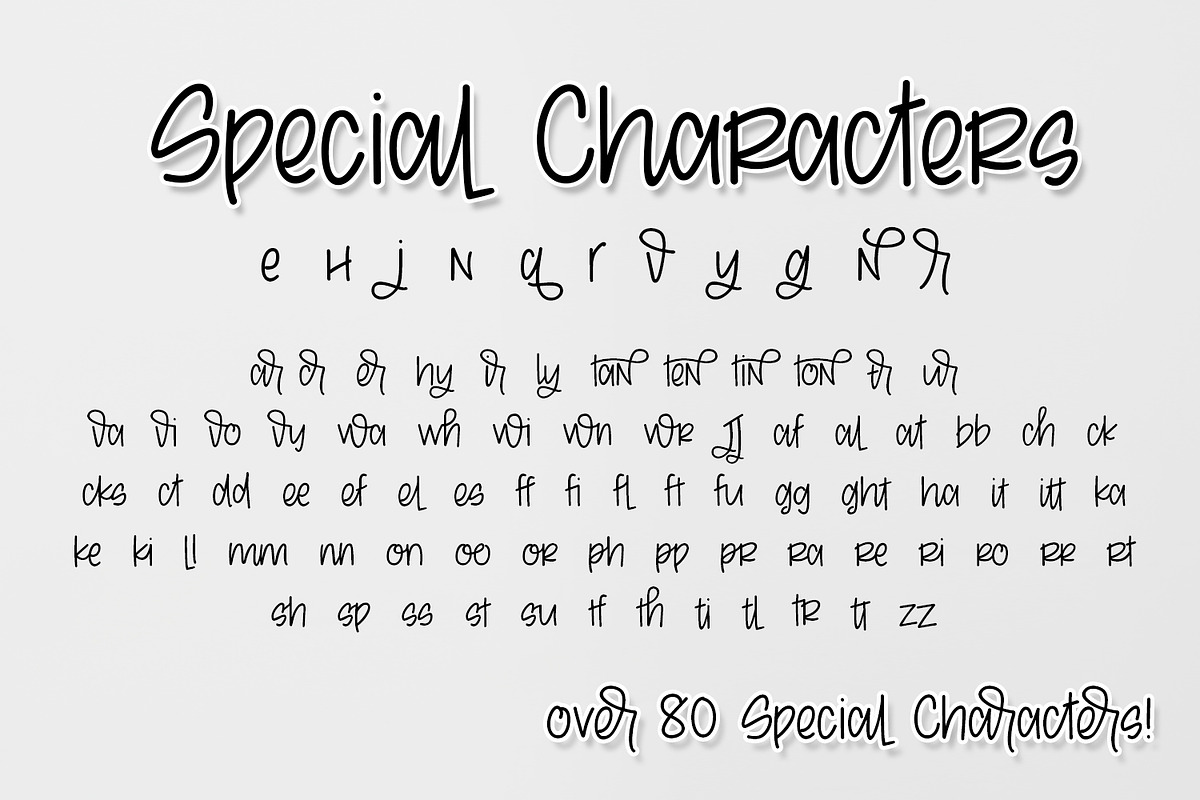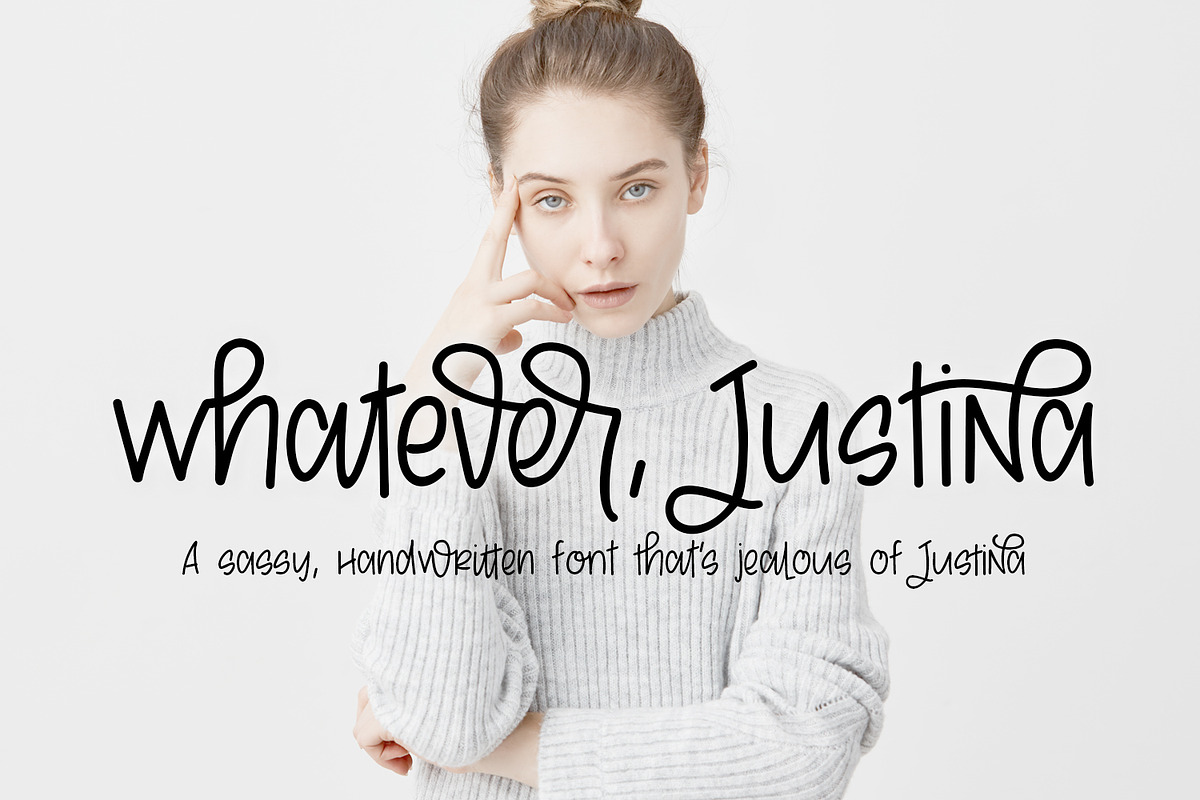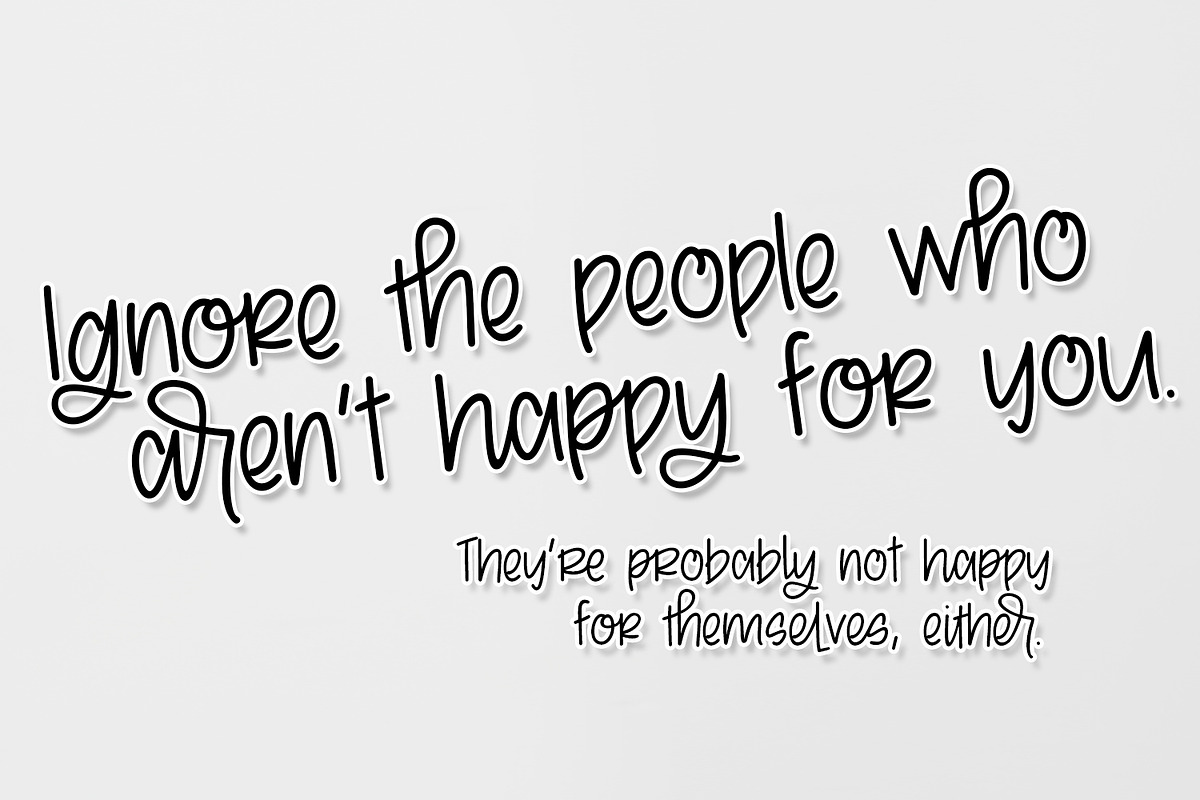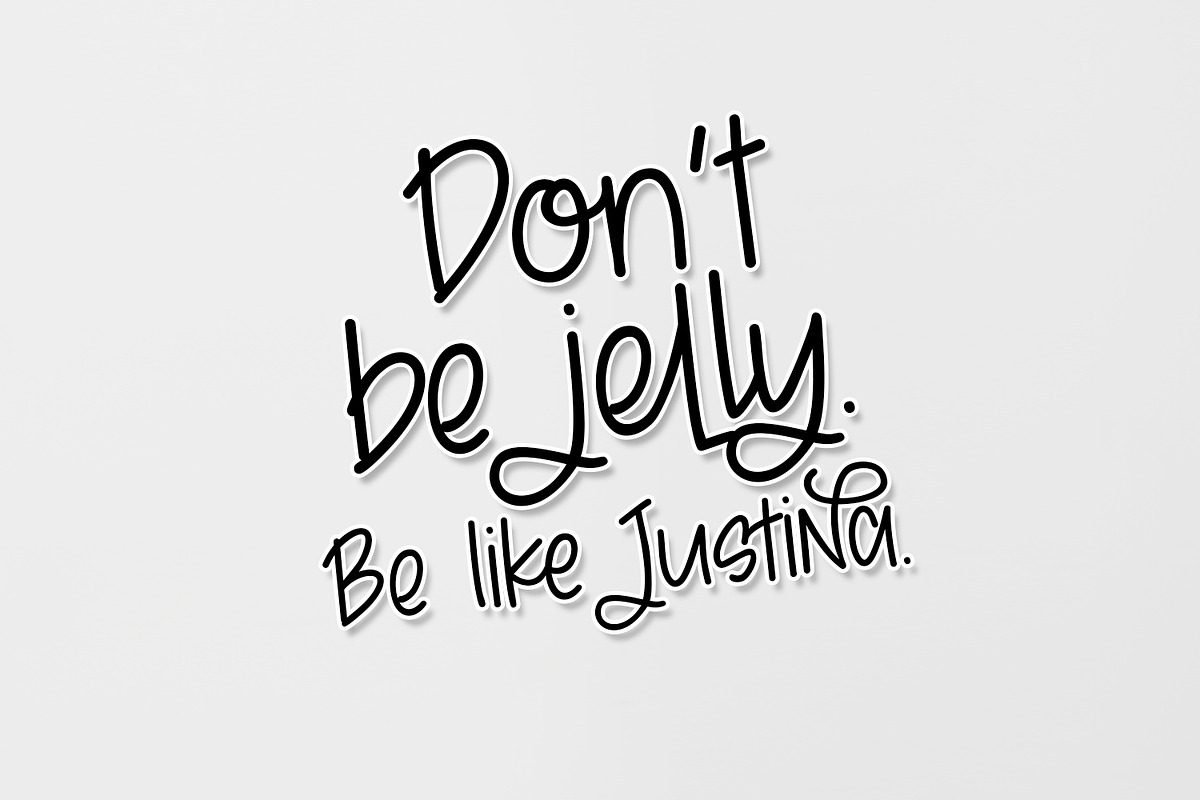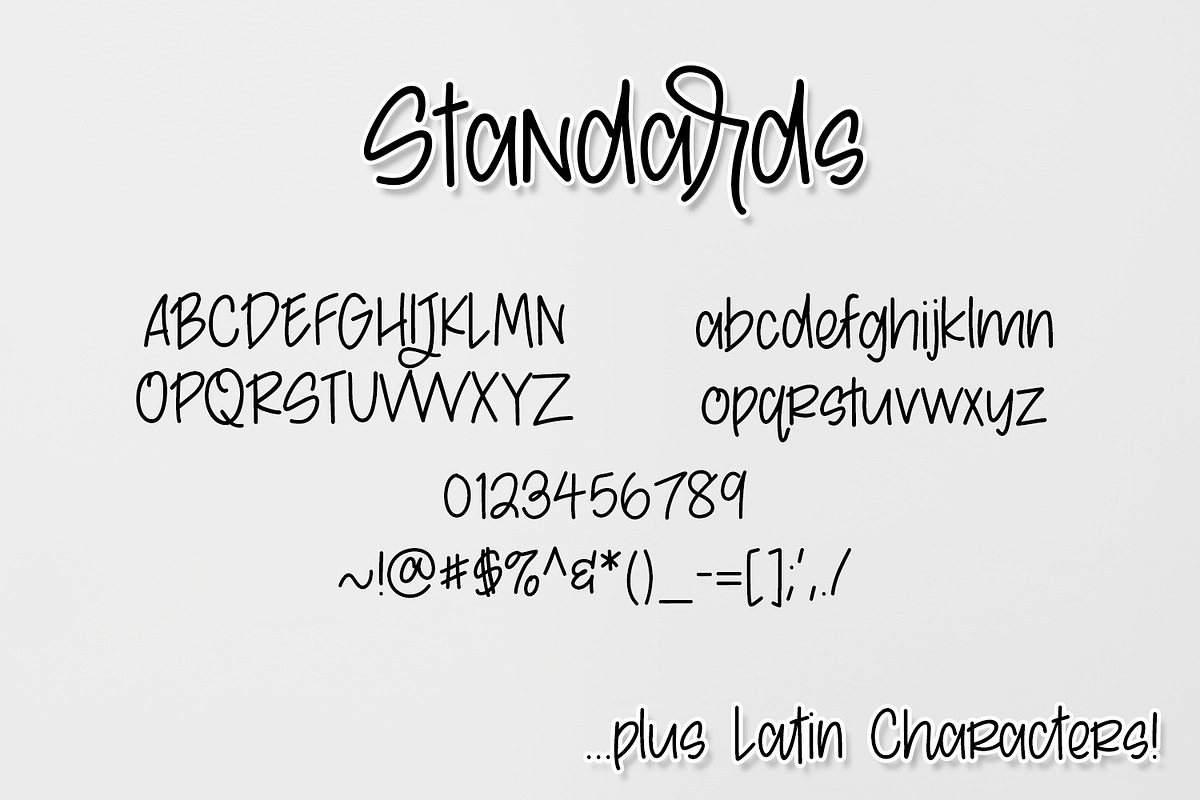
whatever, Justina Font
A sassy handwritten font with over 80 alternates!
whatever, Justina Font by A Little Smidge fits naturally into Branding, posters, packaging, typography.